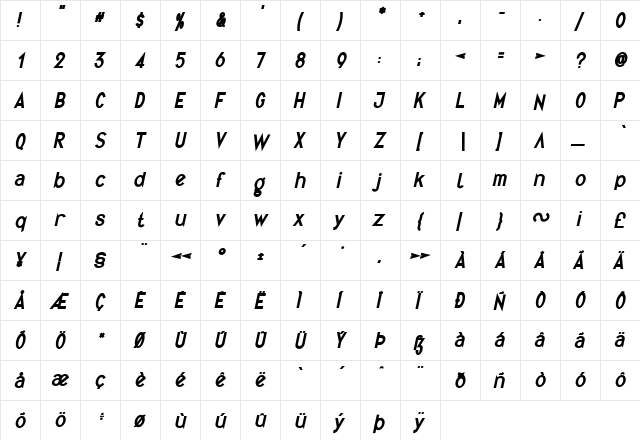
Quirkus Bold Italic
| Designer | Peter Wiegel |
Design Context for Quirkus Typeface
Quirkus takes a measured approach to typography — its balanced proportions and neutral character make it a reliable workhorse for both digital and print work. Its italic angle brings a sense of urgency and motion to the letterforms. The heavy weight commands attention and anchors typographic hierarchies.
Pro Tip: Use Quirkus for emphasis, pull quotes, and subheadings where its slanted energy can add rhythm to the layout.